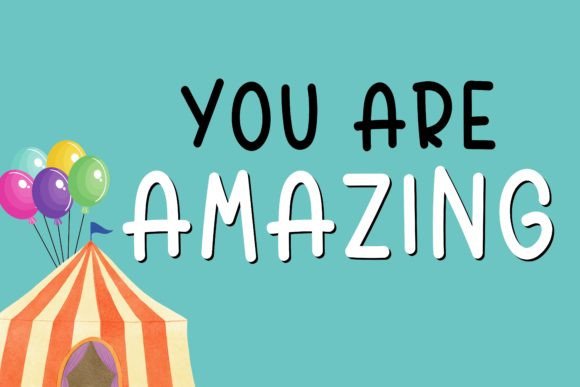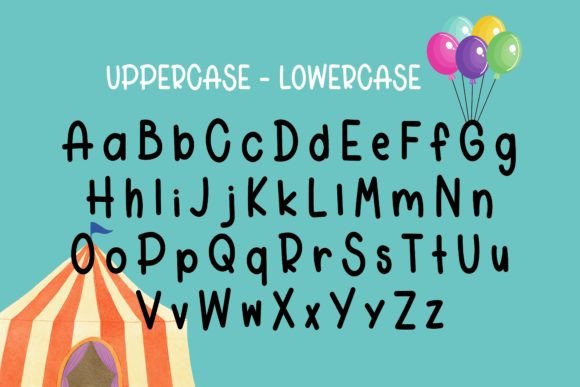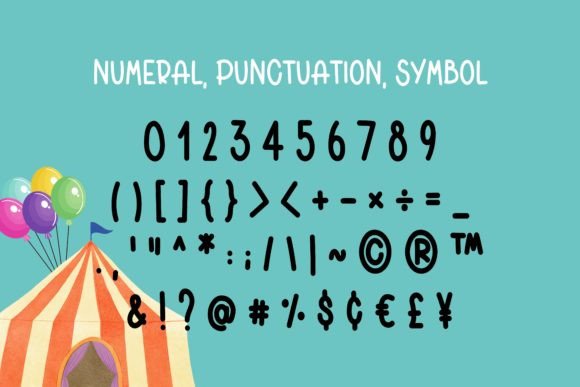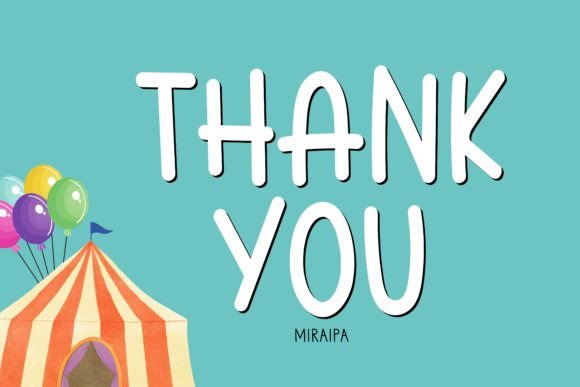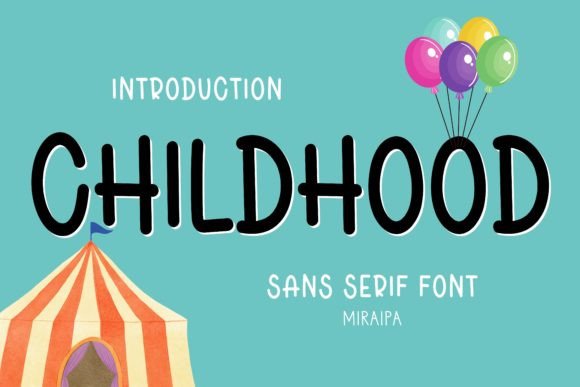
Introducing Childhood Font: The Perfect Addition to Your Design Library
Are you tired of using the same old fonts in your designs? Look no further! We’re excited to introduce Childhood Font, a cute and friendly handwritten sans serif font that’s perfect for adding a touch of whimsy to your projects. In this article, we’ll dive into the features and benefits of Childhood Font, and explore the many ways you can use it to bring your DIY projects to life.
What is Childhood Font?
Childhood Font is a carefully crafted handwritten sans serif font that’s designed to evoke a sense of nostalgia and playfulness. Its cute and friendly style makes it perfect for a wide range of design projects, from back-to-school materials to wedding invitations, party decorations, and more.
Key Features of Childhood Font
- Cute and Friendly Style: Childhood Font is designed to be approachable and fun, making it perfect for designs that require a playful touch.
- Handwritten Sans Serif: The font’s handwritten style gives it a personal and organic feel, while its sans serif design ensures that it’s clear and easy to read.
- Versatile: Childhood Font can be used for a wide range of design projects, from digital designs to print materials.
Uses for Childhood Font
- Back-to-School Projects: Add a playful touch to your back-to-school designs, such as flyers, posters, and worksheets.
- Weddings and Parties: Use Childhood Font to create adorable wedding invitations, party decorations, and favors.
- Fall, Halloween, and Christmas Designs: Get into the holiday spirit with Childhood Font, perfect for creating seasonal posters, cards, and social media posts.
- Clothing and Accessories: Add a cute and playful touch to your clothing and accessory designs, such as t-shirts, mugs, and tote bags.
- Greeting Cards and Social Media Posts: Use Childhood Font to create heartwarming greeting cards and engaging social media posts.
Why Add Childhood Font to Your Library?
- Unique Style: Childhood Font offers a unique and refreshing style that will set your designs apart from the rest.
- Ease of Use: The font is easy to use and pairs well with a variety of other fonts, making it perfect for mixing and matching.
Tips for Using Childhood Font
Here are a few tips for getting the most out of Childhood Font:
- Experiment with Colors: Childhood Font looks great in a variety of colors, so don’t be afraid to experiment and find the perfect hue for your design.
- Mix and Match: Try pairing Childhood Font with other fonts to create a unique and eye-catching design.
- Use it Digitally: Childhood Font is perfect for digital designs, such as social media posts and blog graphics.
| Font Name | Childhood Font |
| Author | miraipa |